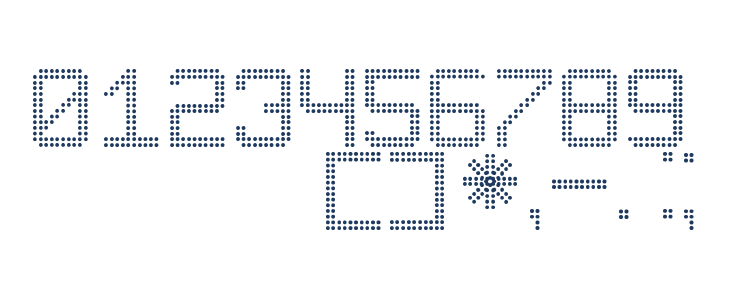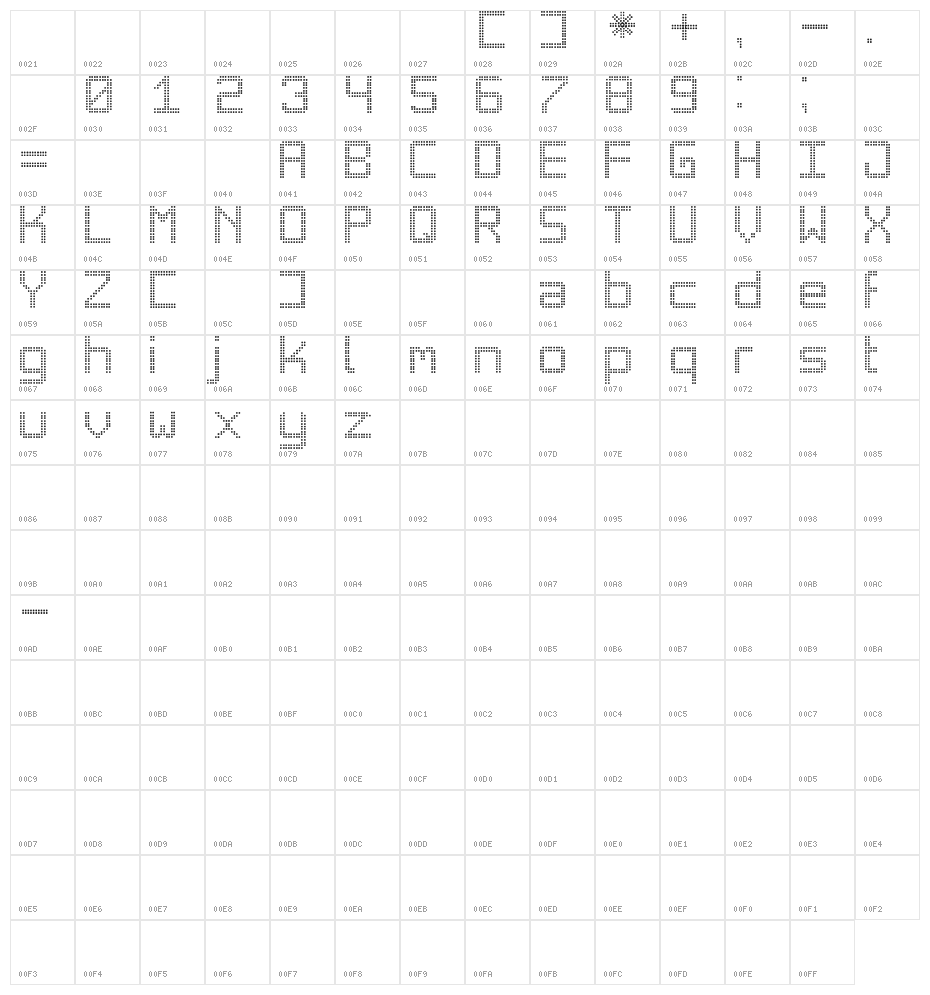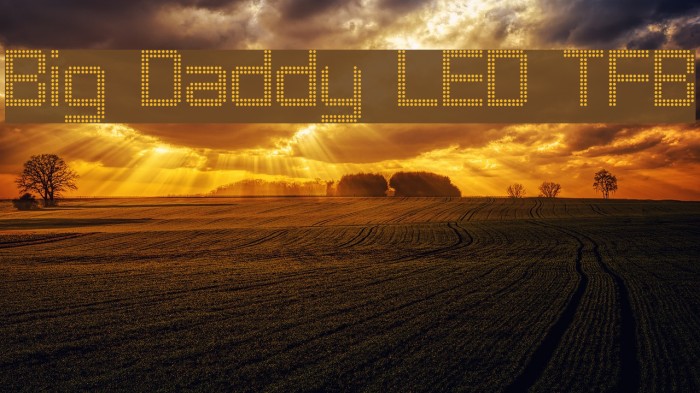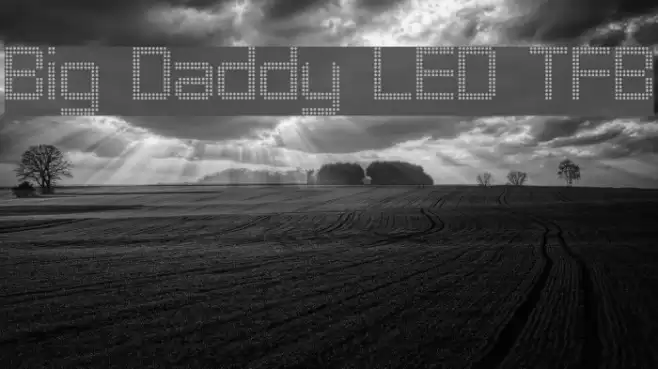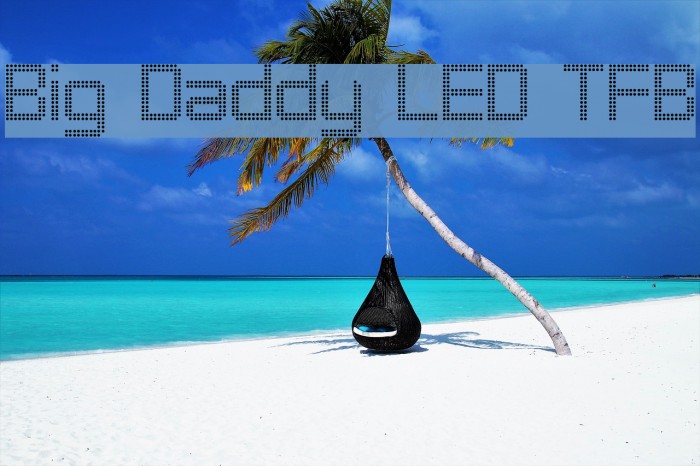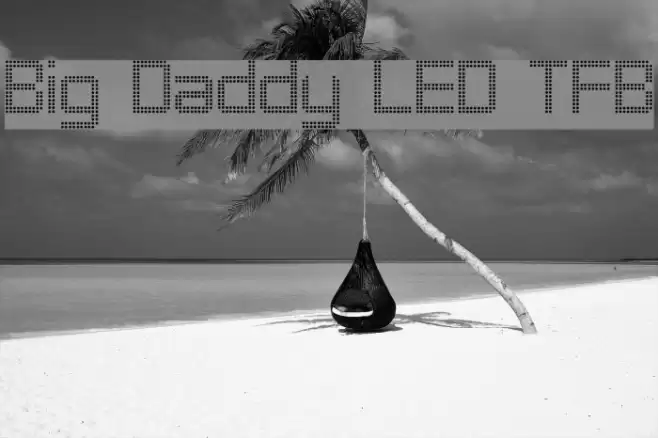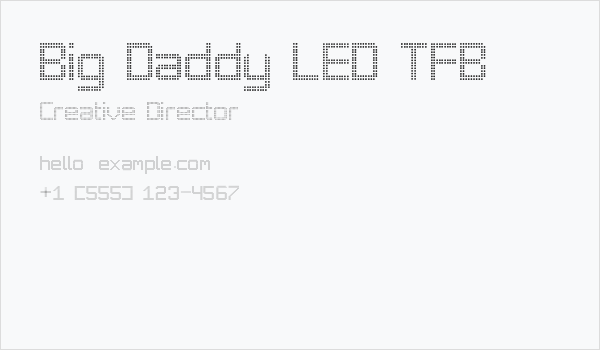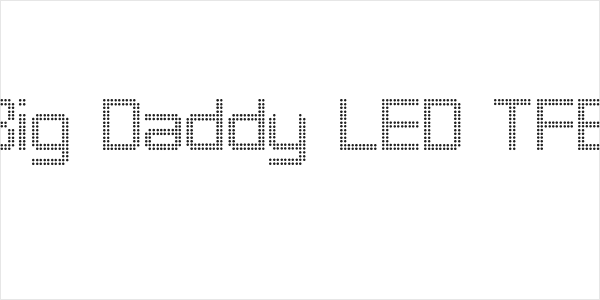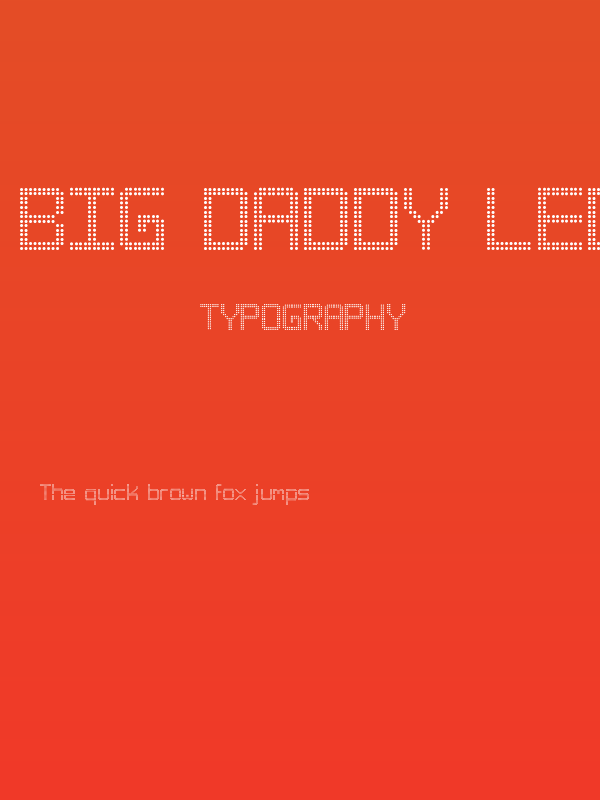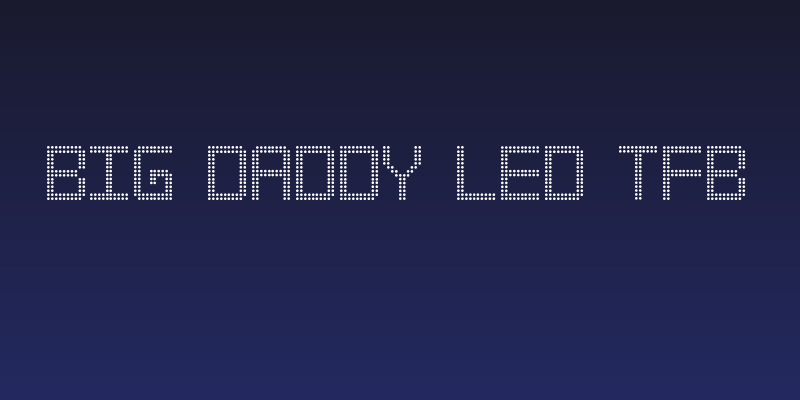
Big Daddy LED TFB Font
Big Daddy LED TFB Description
This font features a distinctive dot matrix style, reminiscent of LED displays or digital clocks. Each character is constructed from a grid of evenly spaced dots, creating a modern and technological appearance. The uppercase and lowercase letters maintain a consistent height and width, contributing to a uniform look. The numerals and special characters follow the same dot pattern, ensuring cohesion across all elements. This font's geometric precision and digital aesthetic make it ideal for projects that require a futuristic or tech-savvy feel.
| Use Case | Headlines, Digital displays, Tech interfaces |
| Proposed Projects | Ideal for digital displays, tech-themed designs, electronic interfaces, and futuristic branding. |